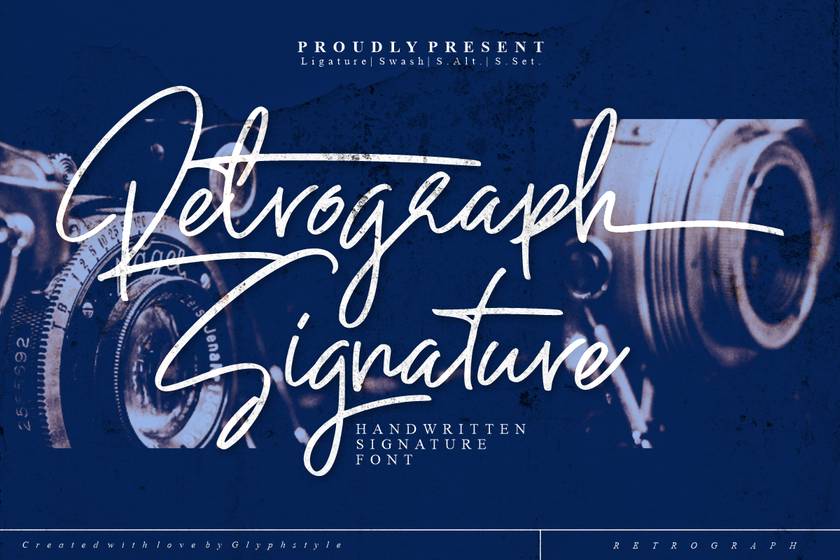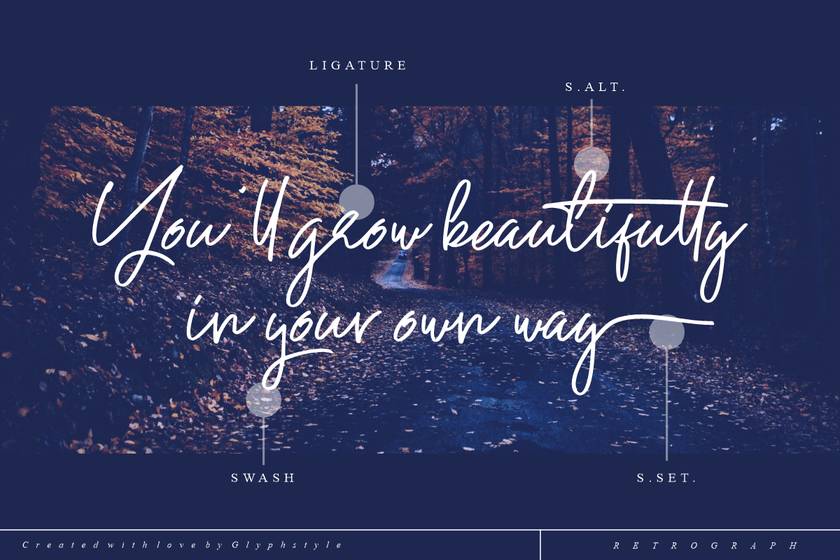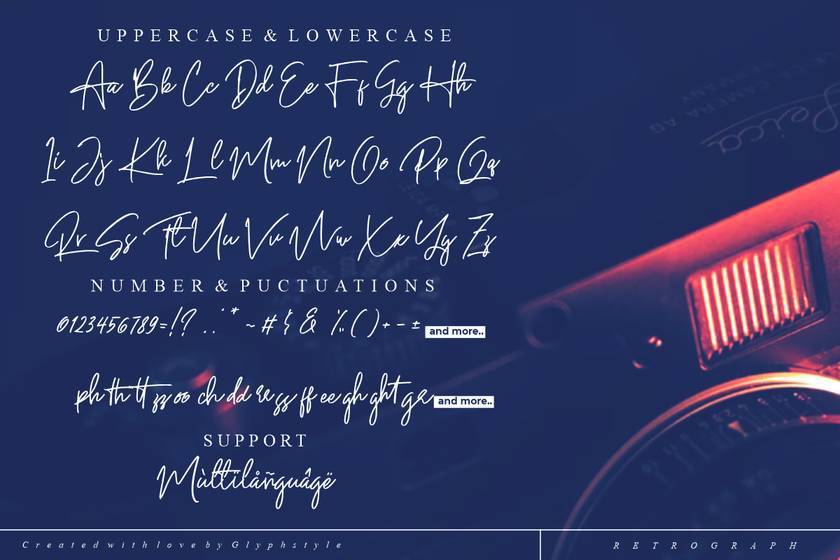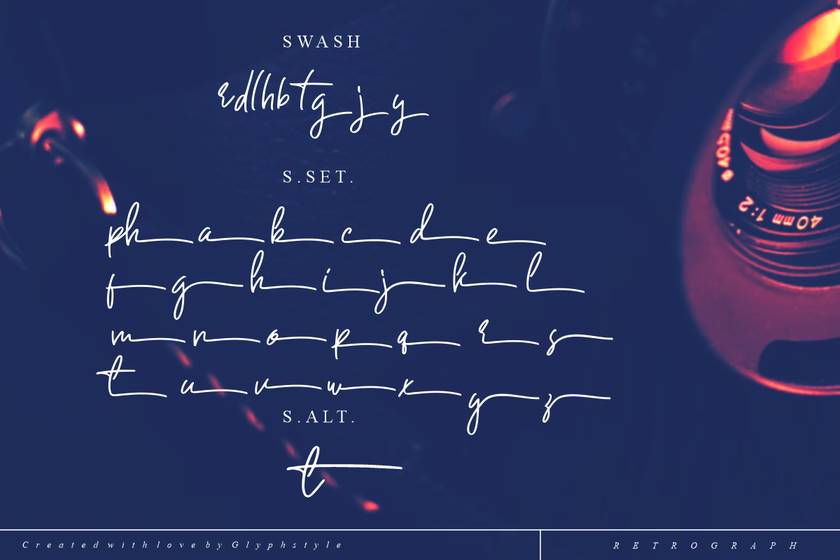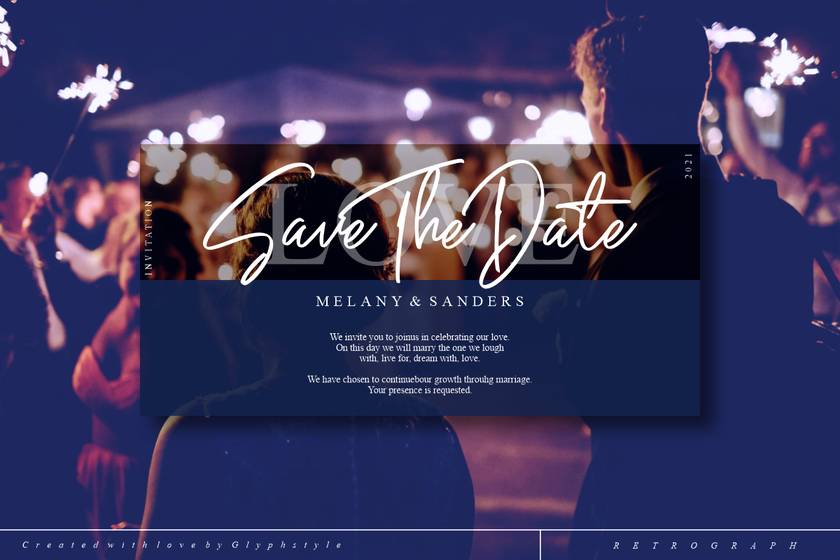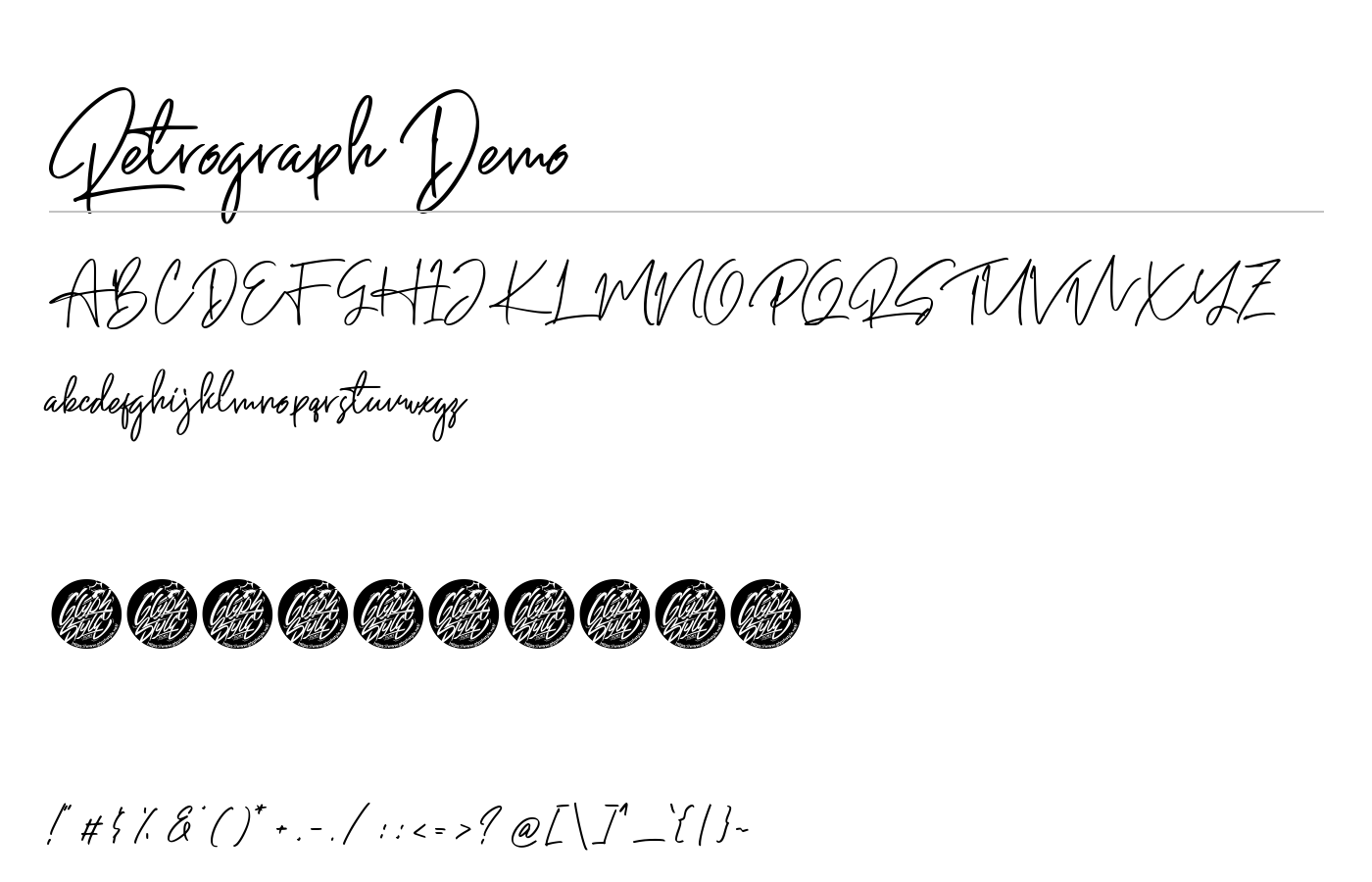
Retrograph is a delicate, handwritten script font with a light, airy feel and elegant, flowing lines. Its tall, narrow letterforms and casual yet refined style make it perfect for creative branding, invitations, and artistic projects that want to convey a modern, personal touch. This font works particularly well in headlines and logo design where a sophisticated, handwritten appearance adds charm and uniqueness.
Retrograph Font
About Retrograph Font
| Font family | Retrograph Font |
| Release date | 2020-11-04 |
| Designer | GlyphStyle |